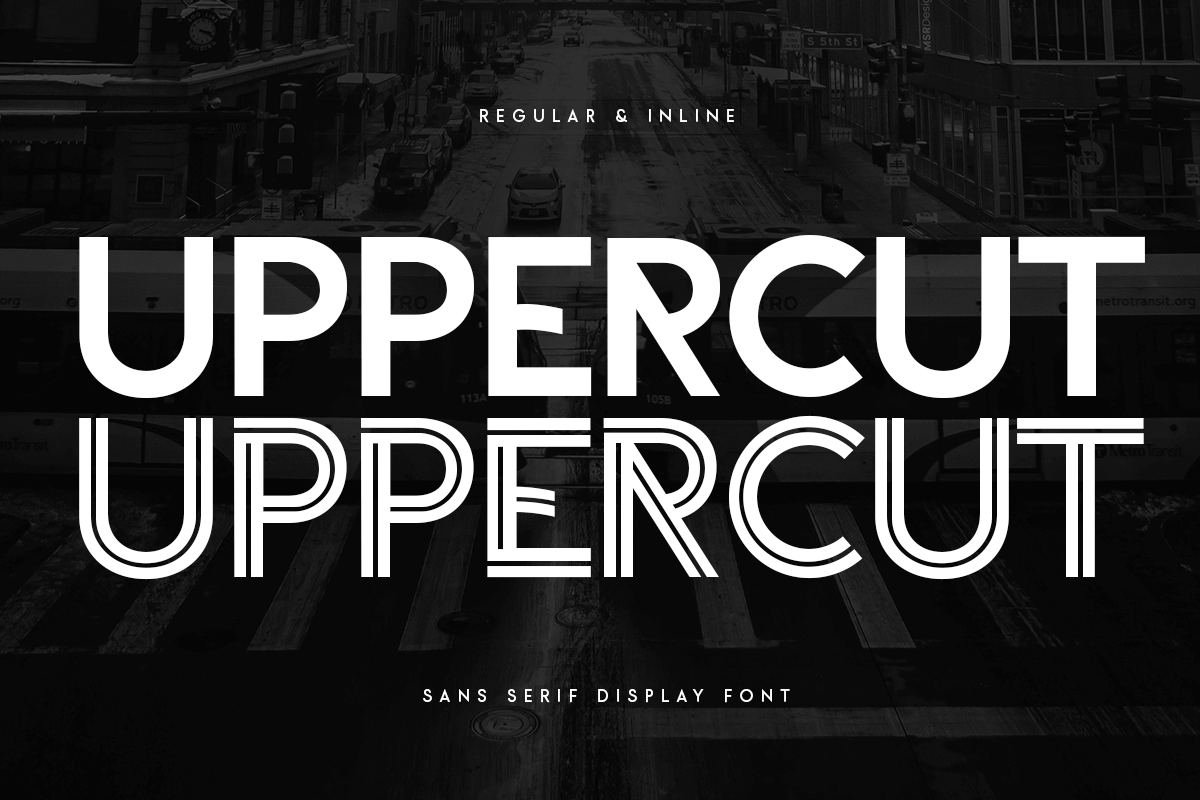
Uppercut
-Sans Serif Display Font
Uppercut is a Modern sans serif display font that special created for Modern needs with unique style. A New Display font that we created special for Unique branding needs, with weird style that ready to add value of your brand. It's so nice to leverage designer or product owner that need solutions to make their design look more unique and urban.